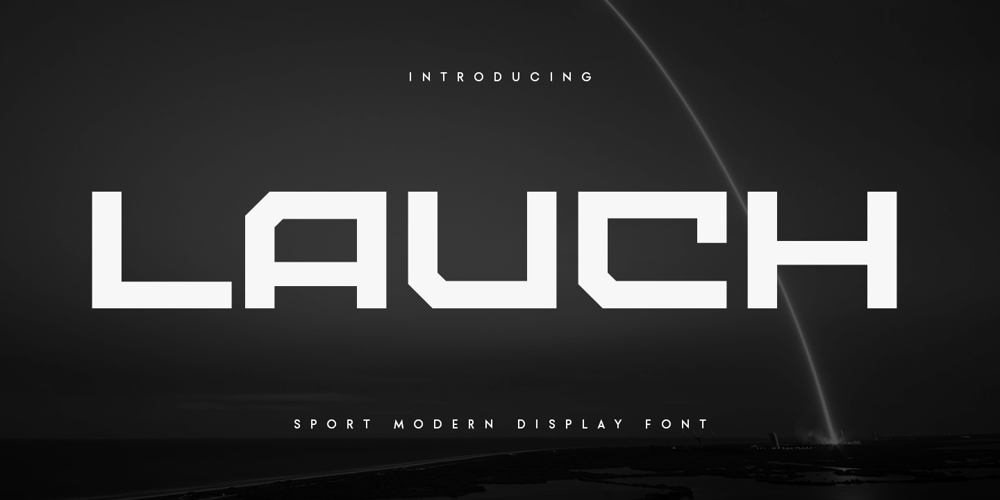
Lauch Font Family was designed by Zamroni Hamzah and published by Sensatype Studio. Lauch contains 1 styles and family package options. Lauch is a Sport Modern Font that created special for Branding, Title and more stand out typography for sport and action. It’s so perfect to add your style and headline overview for sport, technology, actions, and fighting theme. And specially for this font, we crafted for bold action style and modern feels so enjoy to create any project that will show your main idea out.Lauch Sport Modern Font ready with: Creative characters prepared to get best results 3 files format already Preview as a inspirations that you can do with Lauch font Ready with All Uppercase characters Wish you enjoy our font. 🙂